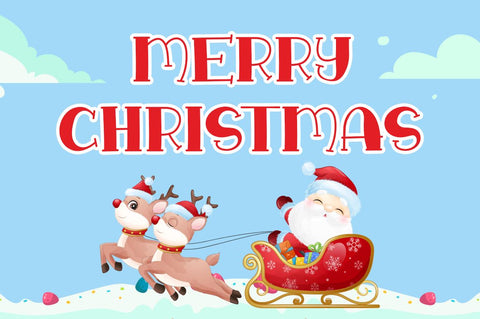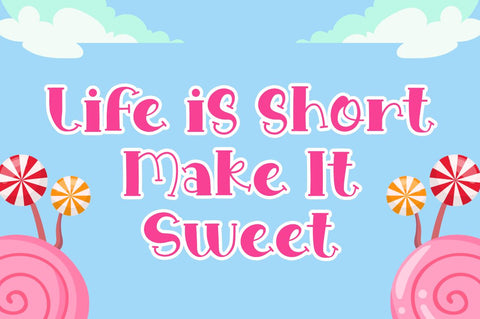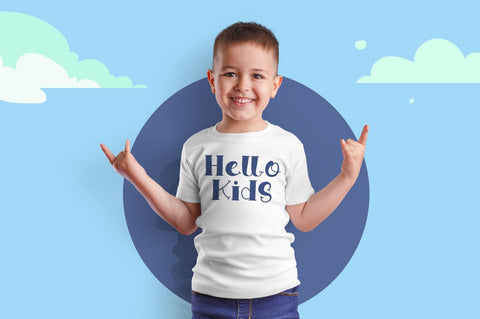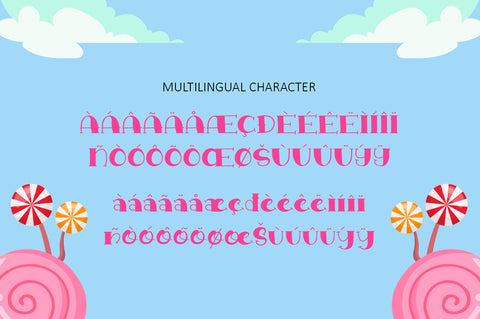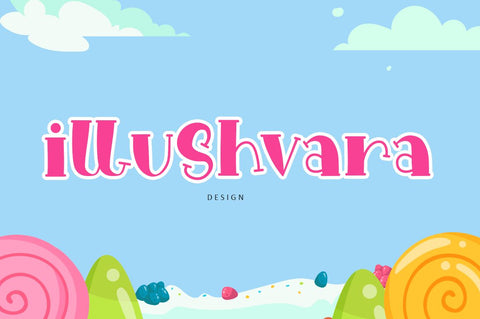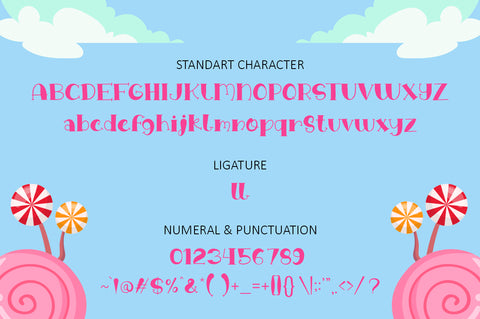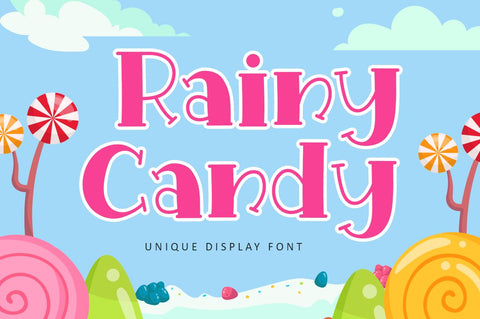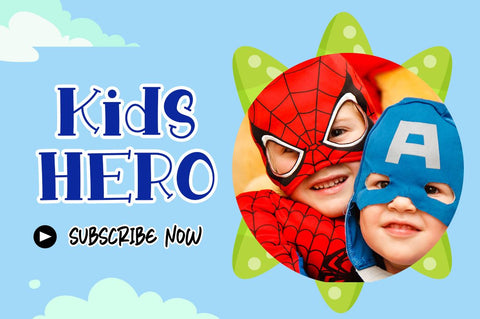
Rainy Candy - Christmas Font
We are so excited to announce our new fonts "Rainy Candy" is unique display font. Use it to make your ideas even more realistic like a kids, sweet packaging, merchandise and create spectacular the Christmas designs!
• Uppercase and lowercase
• Numbers
• Symbols
• Multilingual Accent